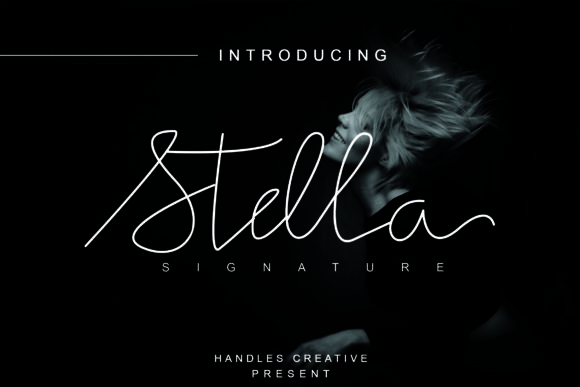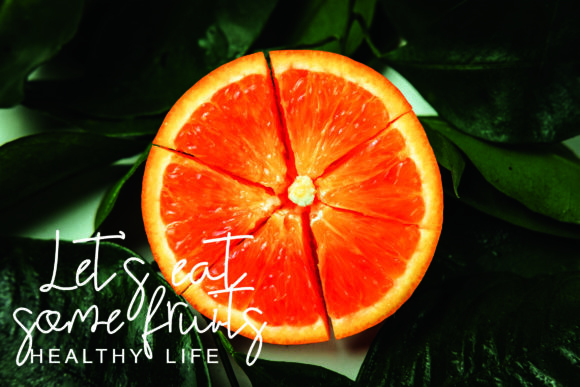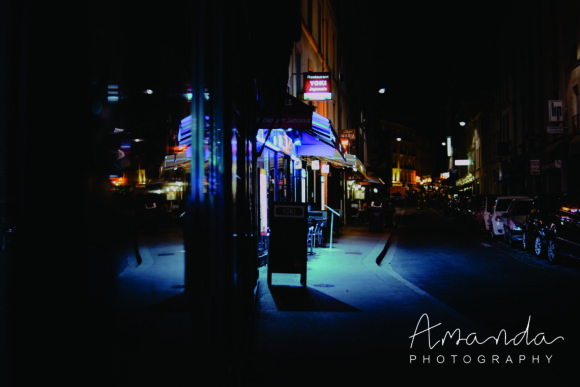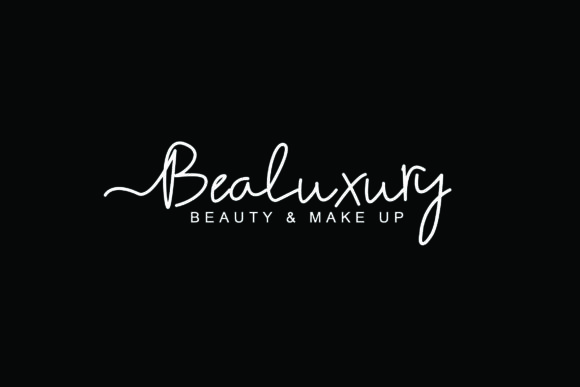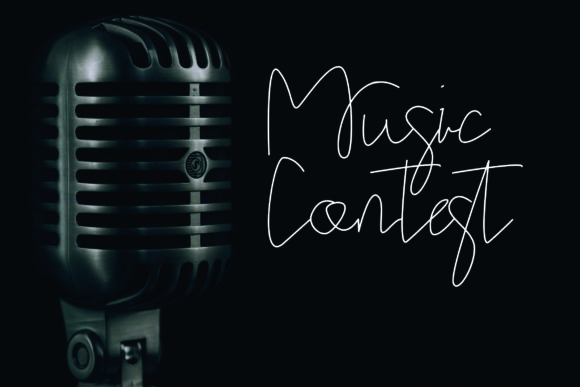
About Stella Font
Stella is an elegant script font with a contemporary atmosphere and impeccable form, inspired by timeless classic calligraphy. It looks beautiful on a variety of designs requiring a personalized style, such as wedding invitations, thank you cards, weddings, greeting cards, logos and so on.